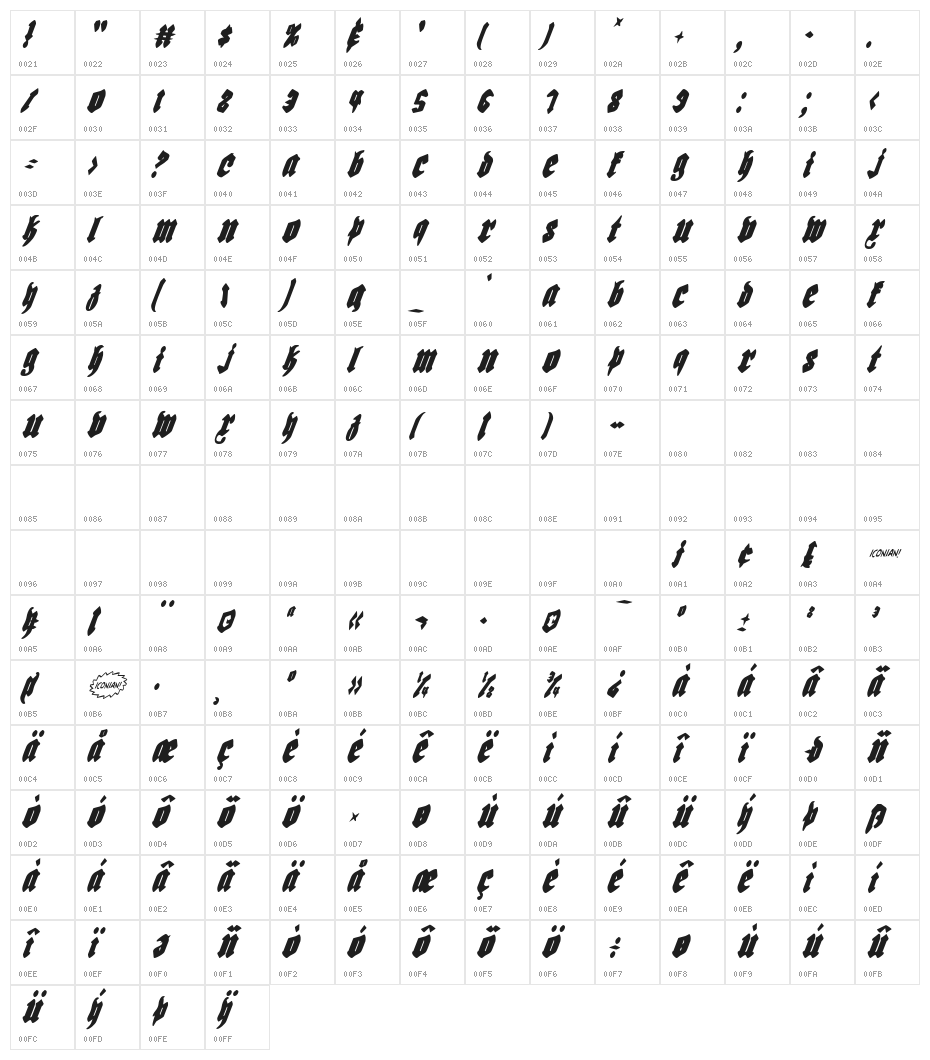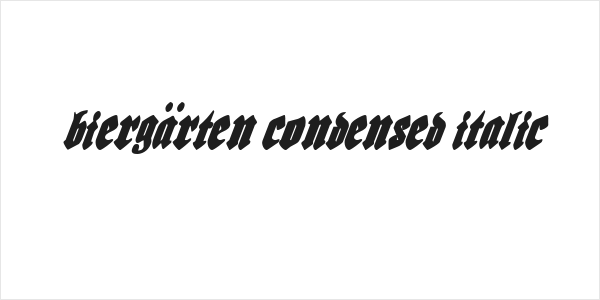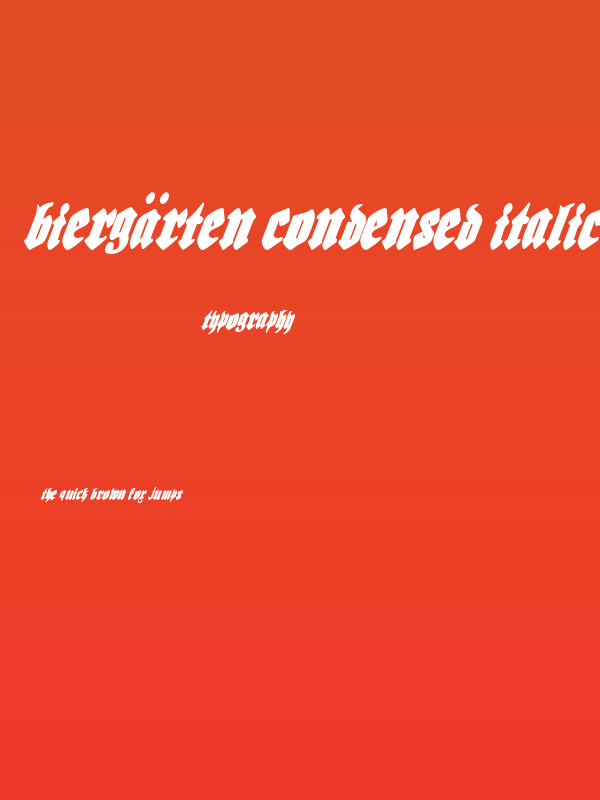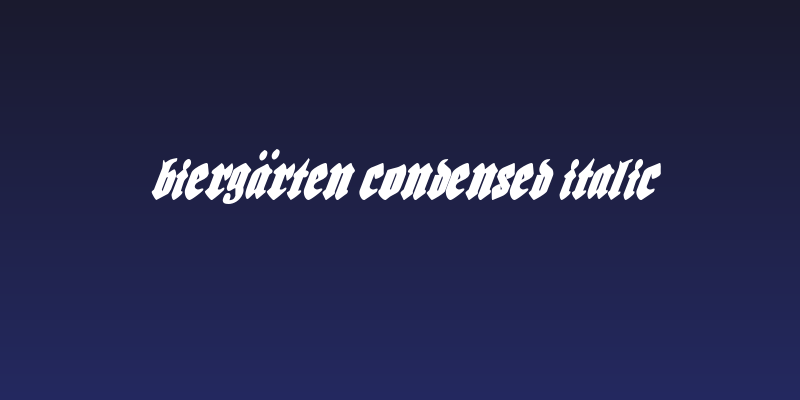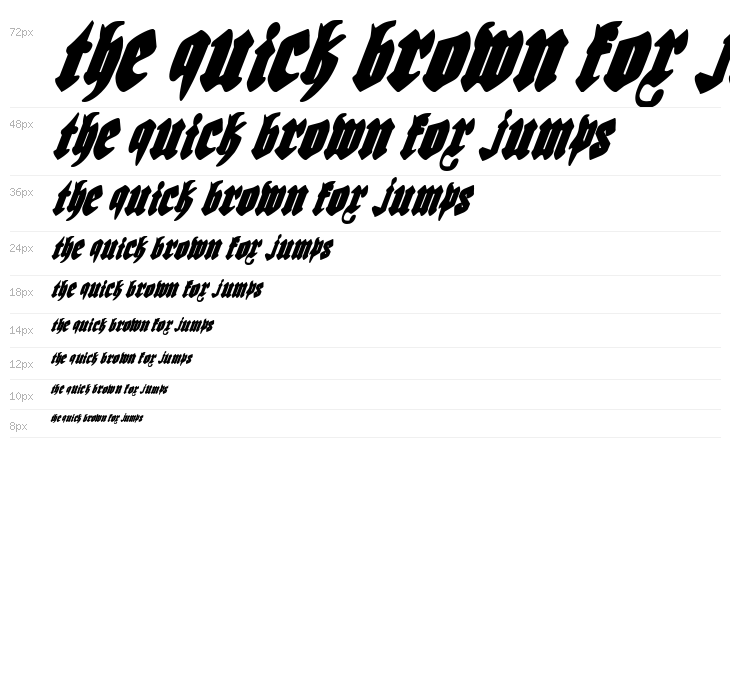
Biergärten Condensed Italic Font
Biergärten Condensed Italic Description
This font features a bold, condensed style with a distinct italic slant, reminiscent of traditional Blackletter scripts. The characters are tightly spaced, creating a cohesive and dense appearance. The strokes are thick and angular, providing a strong visual impact. The uppercase and lowercase letters maintain a consistent style, with sharp edges and pointed terminals. The numerals and special characters follow the same design principles, ensuring uniformity across all glyphs. This font exudes a vintage and gothic aesthetic, making it ideal for projects that require a dramatic and historical feel.
| Proposed Projects | Suitable for branding, posters, book covers, and any design requiring a dramatic, historical touch. |